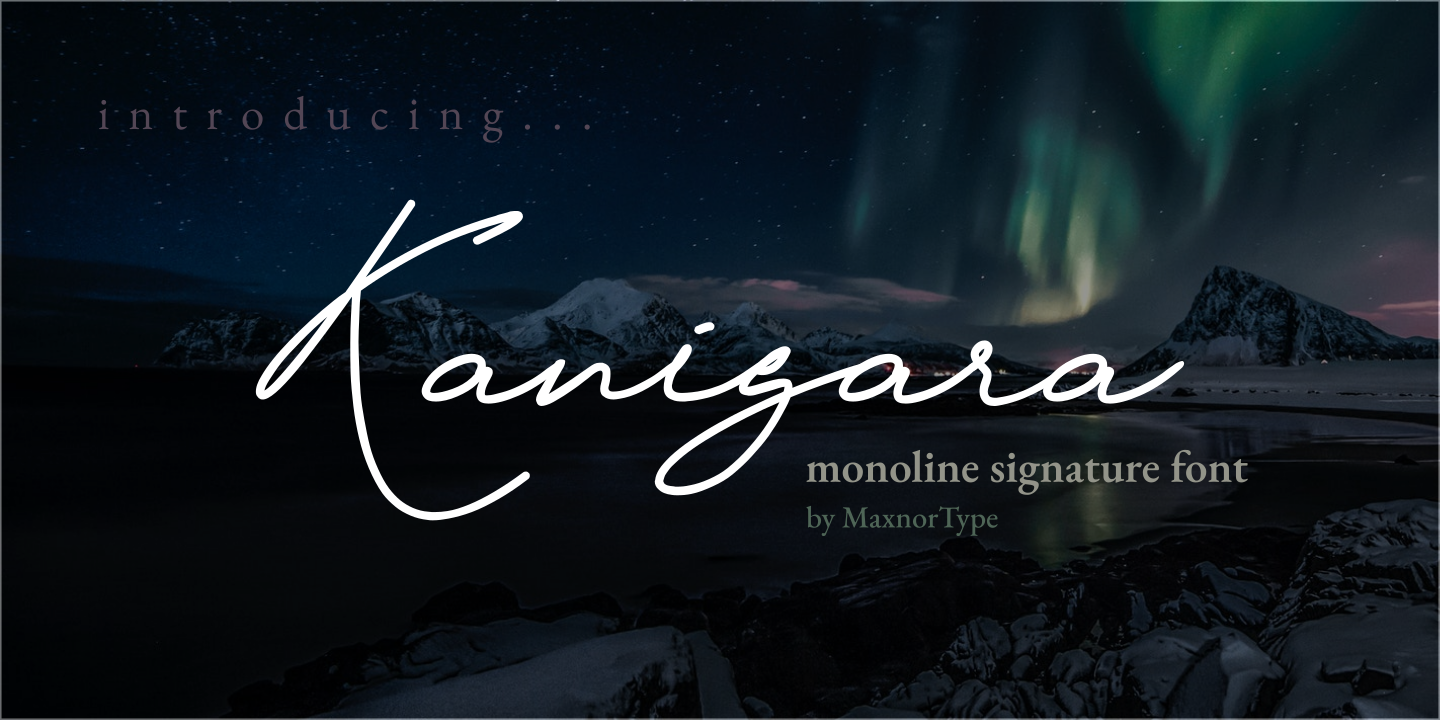
Kanigara Font is a beautifully artistic and distinctive script typeface that exudes elegance, handcrafted charm, and a unique flowing rhythm. Its expressive strokes and sophisticated character make it an exceptional choice for projects aiming to convey luxury, intimacy, and a personal touch with a hint of natural artistry. Imagine it perfect for elegant wedding invitations, high-end fashion branding, gourmet product packaging, heartfelt greeting cards, captivating social media graphics, and unique custom merchandise. This font excels in environments where a sense of bespoke quality, romantic allure, and refined artistry are paramount. It’s particularly effective for conveying sincerity and a memorable aesthetic, ensuring your message not only stands out but also resonates with an irresistible grace and personal appeal.
What makes Kanigara Font truly exciting is its ability to infuse designs with a sense of authentic beauty and emotional resonance. It often features delicate swashes, ligatures, and stylistic alternates that mimic genuine calligraphy, giving each character a unique, almost bespoke feel. This font isn't just about displaying text; it's about telling a story with elegance and warmth, injecting your designs with a sense of personal connection and undeniable charm. It has a powerful ability to feel both incredibly luxurious and surprisingly versatile, making it an ideal tool for designers who want their work to convey sophistication, sentiment, and a truly memorable visual impact. Kanigara Font empowers brands and creatives to project an image that is refined, authentic, and full of heartfelt artistry.
The Kanigara Font family typically offers a range of options to enhance its versatility and expressive capabilities. You'll often find it available in a strong, elegant regular weight, with some versions including stylistic alternatives for certain characters, ligatures, or a set of swashes that further emphasize its handcrafted appeal and allow for more customized typographic compositions. The comprehensive character set generally covers standard Latin characters, numbers, and a selection of punctuation marks, ensuring that Kanigara Font Free Download is suitable for a wide variety of creative and commercial applications. Its distinctive and memorable presence ensures that any project featuring Kanigara Font will leave a strong, lasting impression.